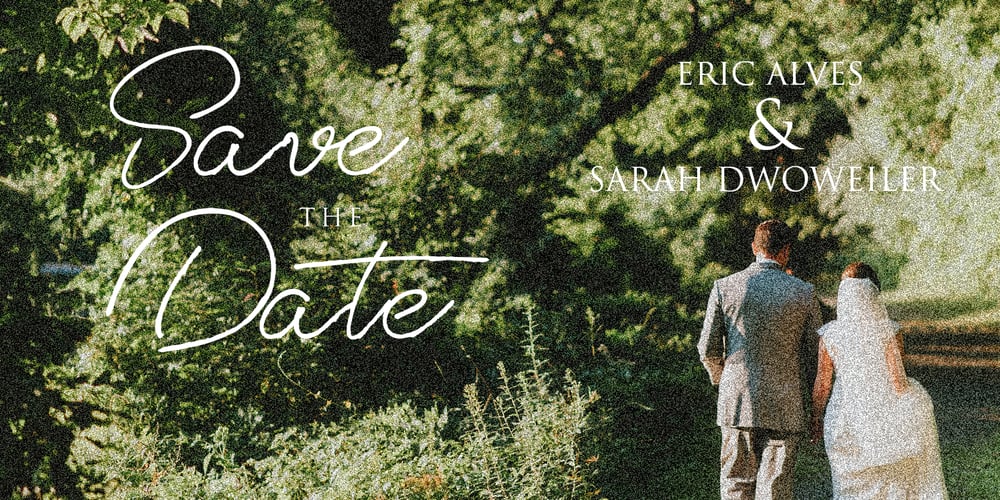
Tristyn
Tristyn font
Tristyn Font Family was designed by Asep Rendi and published by Arendxstudio. Tristyn contains 2 styles and family package options. Tristyn is a signature handwritten font package with a personal charm. With a style that I feel is the first time being blended with a different brush so it has a natural hand Tristyn Regular contains upper and lower case letters, numbers and various complete signs. Tristyn Alt includes alternative characters, with capital letters and small that is completely new. Ligatures are available for some lowercase letters (more natural double letters). This can only be accessed through software with different devices or glyph panels, e.g. Photoshop / Illustrator. There it is! I really hope you enjoy it – comments & likes are always welcome and accepted. More importantly, don’t hesitate to send a message if you have a problem or question. Now just read this, go there and make it happen 🙂